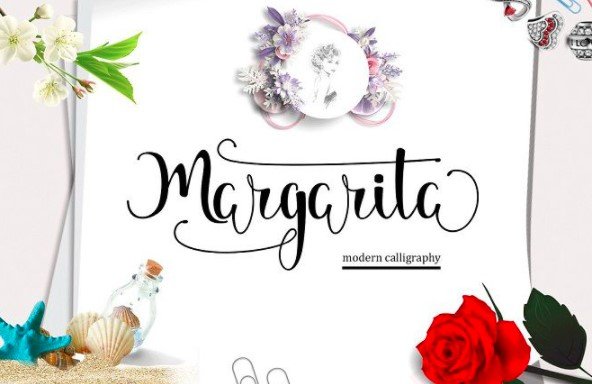
Do you enjoy incorporating calligraphic fonts into your projects? If so, you will be delighted with this fantastic typeface – a modern calligraphic typeface loaded with many excellent features. Presenting Margarita Font, which offers numerous options, perfect for creating large-screen designs at no cost.
The typeface contains curly scripted handwritten letters, alphabetical layouts which looked perfect in all artworks. It is cool font that is used by many graphic designers.
This typeface has Sharp corners that include all uppercase and lowercase letters, numbers, and punctuators which is enough to generate eye catchy content.
The Margarita Script Font is the famous and amazing typeface which was product of the combination efforts by rtcreative86.